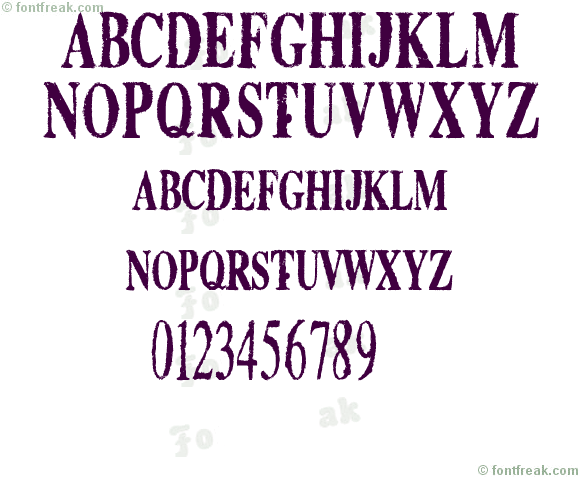
Boutique
About Boutique
The Boutique font by Fie Clarke is a striking display typeface that beautifully combines elegance and artistry. This unique font falls within the decorative category, making it an excellent choice for projects that require a touch of sophistication. Its visual characteristics feature a bold stroke weight, with well-defined contrast that adds depth and dimension to each letterform. The spacing is thoughtfully designed, allowing for readability while maintaining a decorative flair. The Boutique font exhibits an ornate style with subtle decorative elements, giving it an artisanal feel that is perfect for capturing attention.
This versatile typeface is ideal for a variety of applications. It shines in wedding invitations, where its elegant curves can evoke romance and charm. Movie posters benefit from the Boutique font's bold presence, making titles stand out in an eye-catching manner. For restaurant menus, the font adds an upscale touch, enhancing the dining experience through its refined aesthetic. Additionally, it can be effectively used for branding materials, helping small business owners create a memorable identity that resonates with their target audience. Graphic designers and content creators will find this font particularly appealing due to its unique character and versatility.
What sets the Boutique font apart is its ability to convey a sense of artistry and personality, making it more than just a typeface; it's a statement. With its freeware license, users can enjoy a Boutique font free download, allowing for creative freedom without financial constraints. Whether you're designing for print or digital platforms, this font offers an exceptional blend of style and functionality that will elevate any project. Embrace the charm of the Boutique font and let it enhance your creative work.
Author Fie Clarke